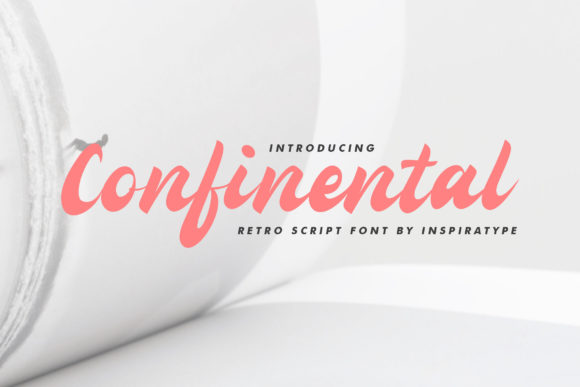
Confinental Font: The Epitome of Elegance and Versatility
In the realm of typography, few fonts manage to strike a balance between elegance and modernity. Confinental Font, however, achieves this feat with remarkable finesse. This handwritten font is a masterpiece that distills sophistication into a single, outstanding typeface. With its classy calligraphic influences and contemporary flair, Confinental Font is poised to elevate a wide range of creative projects, from letterheads and titles to stationery.
The Essence of Confinental Font
Confinental Font is more than just a typeface; it’s an expression of refined taste and poise. Its design is rooted in the traditions of calligraphy, yet it exudes a freshness that makes it instantly relatable to modern audiences. This font’s versatility stems from its unique ability to blend classic elegance with a contemporary aesthetic, making it an ideal choice for designers and crafters looking to imbue their work with a touch of sophistication.
Design Characteristics
Confinental Font boasts a range of design characteristics that set it apart from other typefaces. Its handwritten nature gives it a personal and intimate feel, while its calligraphic roots lend it an air of luxury and refinement. The font’s strokes are fluid and dynamic, with subtle variations in line width that add to its organic and natural appearance. This attention to detail ensures that Confinental Font remains legible and aesthetically pleasing, whether used in print or digital formats.
Versatility in Use
One of the standout features of Confinental Font is its incredible versatility. This font can effortlessly transition across various applications, making it a valuable addition to any designer’s toolkit. Here are some of the ways Confinental Font can be used:
- Letterheads and Corporate Branding: Add a touch of elegance to your business correspondence with Confinental Font. Its professional yet personal feel makes it perfect for letterheads, invoices, and official documents.
- Titles and Headings: Use Confinental Font to create stunning titles and headings for your blog posts, articles, or website content. Its eye-catching design ensures that your titles stand out, capturing the attention of your audience.
- Stationery and Invitations: Elevate your stationery, invitations, and greeting cards with Confinental Font. Its beautiful, handwritten style adds a personal touch, making your correspondence feel more special and heartfelt.
- Digital Content: Confinental Font is also suitable for digital content, including social media graphics, presentations, and ebooks. Its clarity and readability ensure that your message is conveyed effectively across various digital platforms.
Why Choose Confinental Font?
In a world where fonts are plentiful, Confinental Font stands out for several reasons:
- Unique Blend of Style and Elegance: Confinental Font offers a rare combination of classic calligraphic influences and modern freshness, making it a unique addition to any project.
- High Versatility: Its adaptability across different applications and mediums makes Confinental Font a practical choice for a wide range of creative projects.
- Easy to Read: Despite its elegant and artistic design, Confinental Font remains highly legible, ensuring that your message is communicated clearly and effectively.
- Time-Saving: With Confinental Font, you can achieve professional-looking results without spending hours on design. Its ready-to-use format allows you to focus on the creative aspects of your project.
Tips for Using Confinental Font Effectively
To get the most out of Confinental Font, consider the following tips:
- Pair with Complementary Fonts: For maximum impact, pair Confinental Font with simpler, sans-serif fonts for body text. This contrast ensures that your headings and titles stand out while maintaining readability.
- Experiment with Colors: While Confinental Font looks stunning in black or dark colors, don’t be afraid to experiment with different hues. Soft pastels, rich jewel tones, or even metallic colors can add an extra layer of elegance to your designs.
- Adjust Line Spacing: For better readability, especially in longer texts, adjust the line spacing to create a comfortable flow. This is particularly important when using Confinental Font for digital content.
Confinental Font is a remarkable typeface that brings together the best of both worlds: the elegance of traditional calligraphy and the freshness of modern design. Its versatility, readability, and stunning aesthetic make it an invaluable resource for designers, crafters, and anyone looking to add a touch of sophistication to their projects. Whether you’re working on a professional branding campaign, a personal stationery set, or a creative writing project, Confinental Font is sure to elevate your work to new heights of elegance and style.